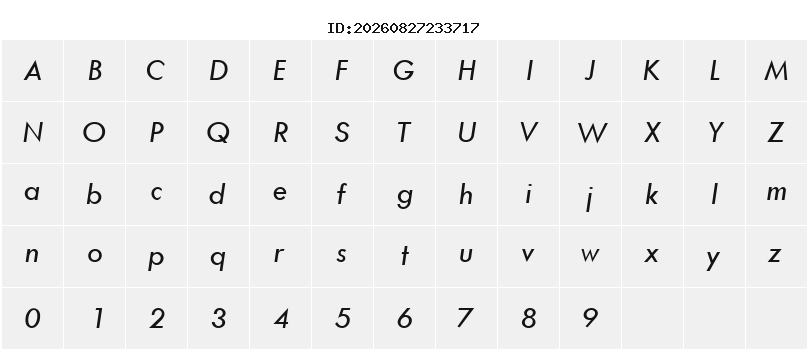
Tw Cen MT Preview
• Font Name: Tw Cen MT
• Designer: Sol Hess
• Manufacturer: Monotype Typography
• Description: 20th Century was designed and drawn by Sol Hess in the Lanston Monotype drawing office between 1936 and 1947. The first weights were added to the Monotype typeface library in 1959. This is a face based on geometric shapes which originated in Germany in the early 1920's and became an integral part of the Bauhaus movement of that time. Form and function became the key words, unnecessary decoration was scorned. This clean cut, sans serif with geometric shapes was most appropriate. The lighter weights can be used for text setting, the bold and condensed fonts are suitable for display in headlines and advertising.
Tw Cen MT.ttf is a modern, elegant sans-serif font designed for ultimate readability and visual harmony. Perfect for branding, headlines, web design, and print materials.